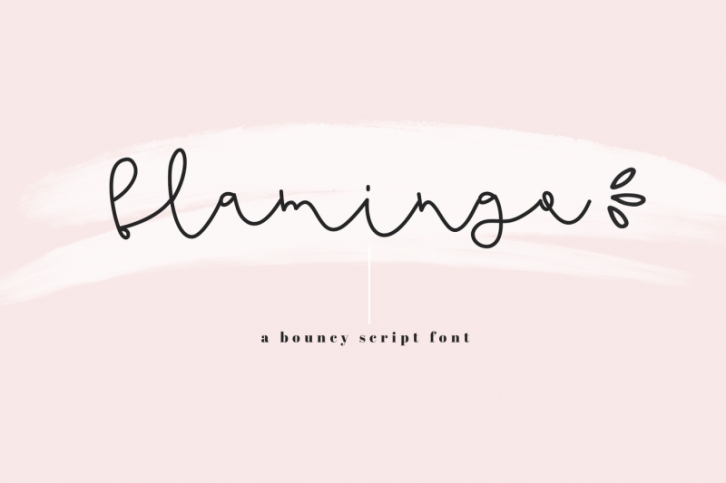
Flamingo is a bouncy, handwritten script font.
It is perfect for quotes, headings, blogs, logos, brandings, invitations and more!
This font does include accent characters.